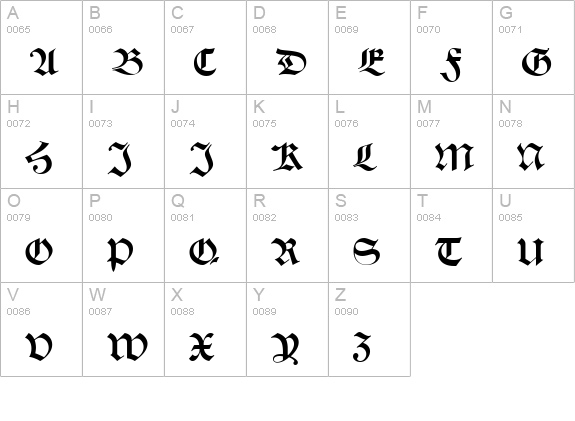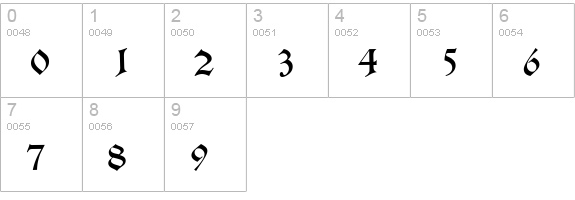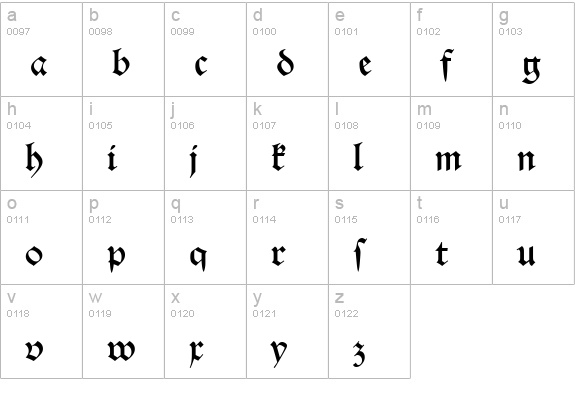
Alte-Schwabacher-Regular is the standard, neutral variant in the Alte typeface family \xE2\x80\x94 well suited to general body text, paragraphs, and standard typographic work.
Alte-Schwabacher-Regular is a classic and elegant font that exudes sophistication and historical charm. Its intricate details and unique letterforms make it ideal for projects that require a touch of old-world refinement. The font's timeless appeal will transport your designs to a bygone era while maintaining a sense of modernity. Best of all, Alte-Schwabacher-Regular is available for free download at FontsMarket.com. This means you can enhance your creations with this exquisite font without any cost. Whether you're working on invitations, branding materials, or any other design project, Alte-Schwabacher-Regular is sure to add a touch of elegance and flair. Download it now and elevate your designs with this stunning typeface.